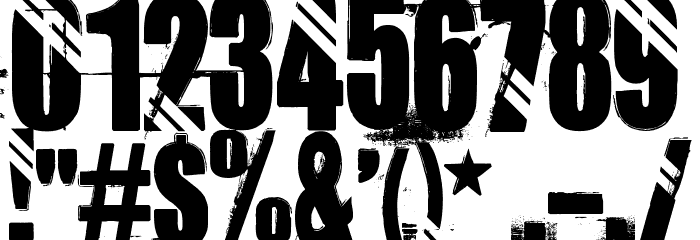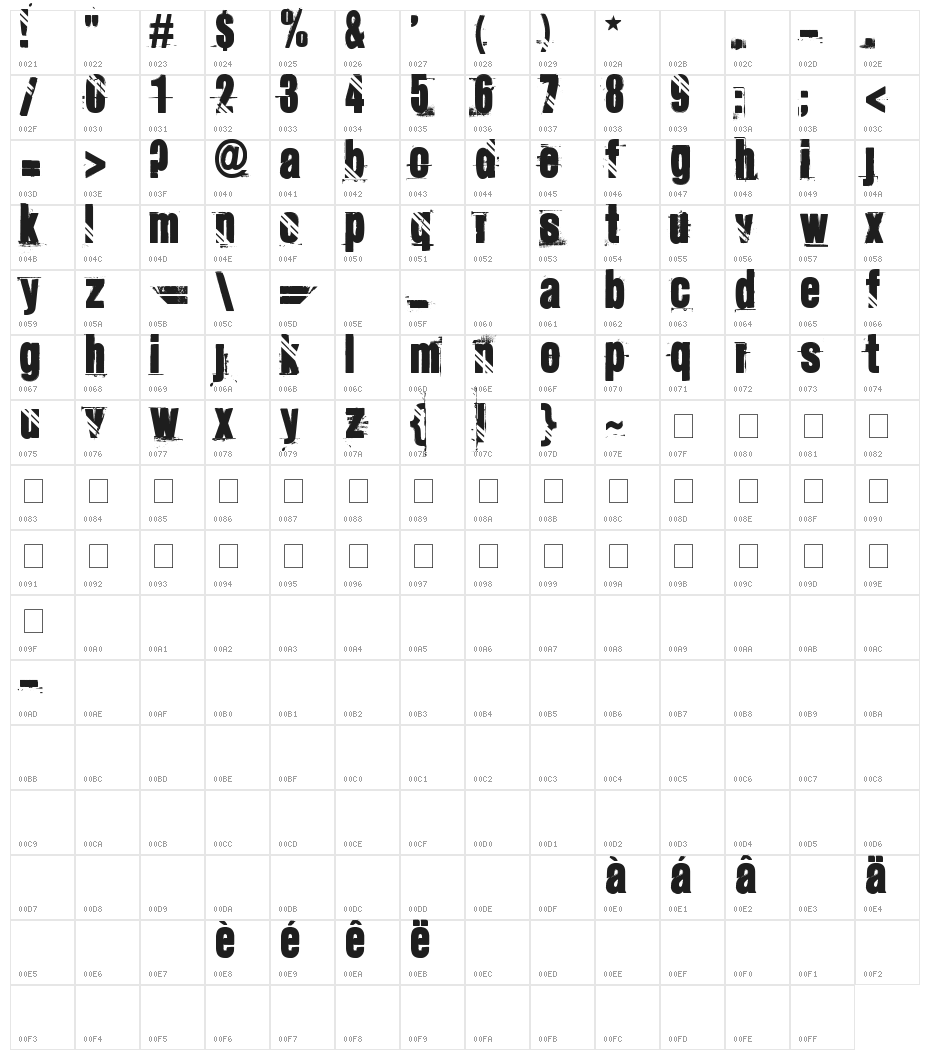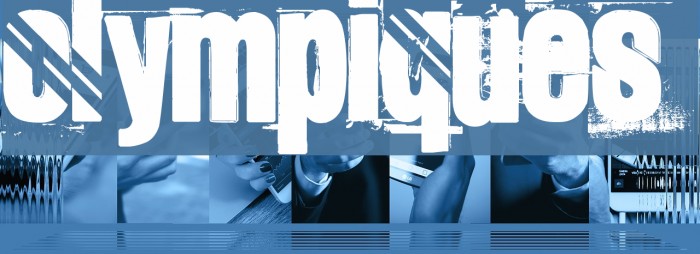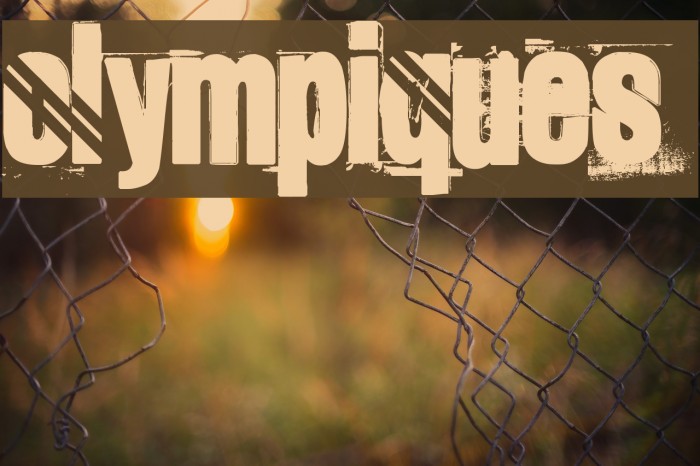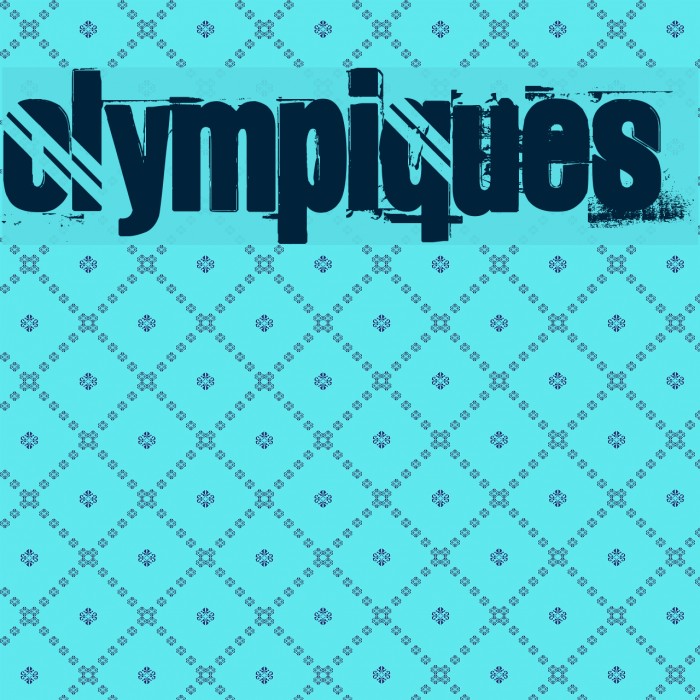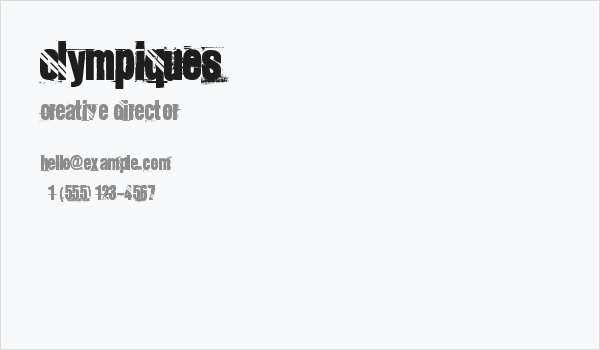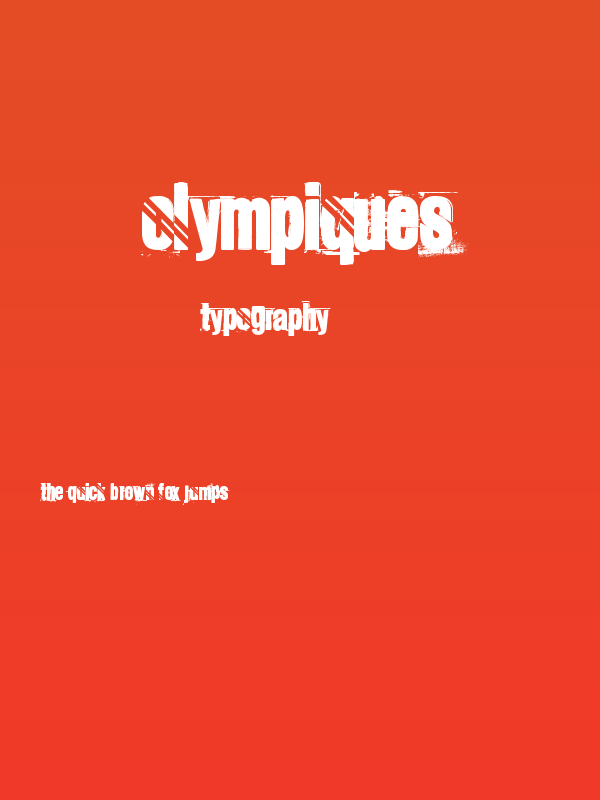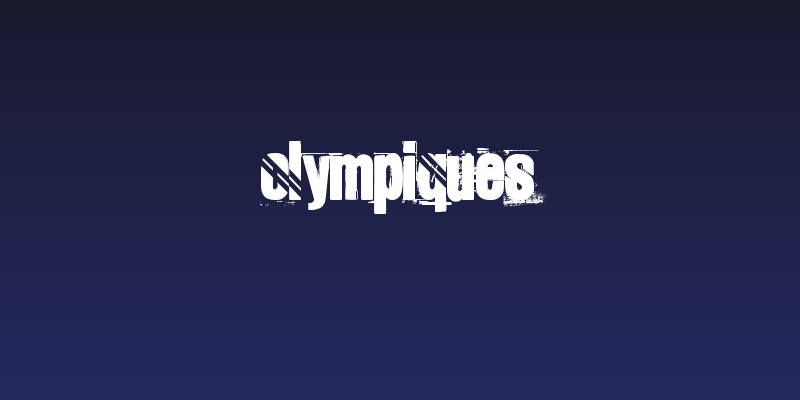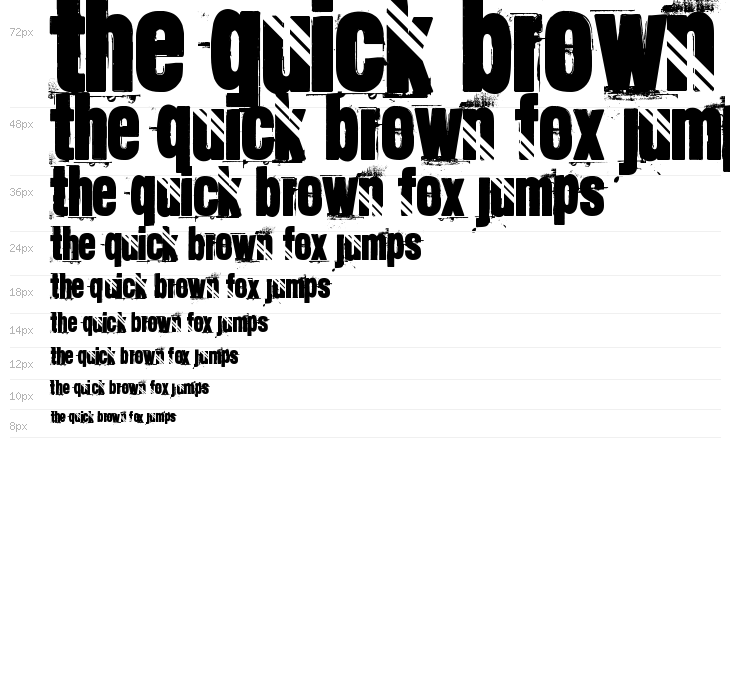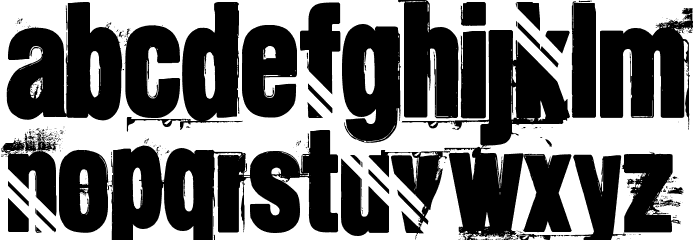
OLYMPIQUES Font
OLYMPIQUES Description
This font features a bold, distressed style with a high level of texture and visual noise, giving it a rugged, grunge appearance. The characters are thick and blocky, with a strong presence that commands attention. The distressed effect is consistent across all characters, creating a cohesive look that is both edgy and dynamic. The uppercase and lowercase letters maintain a uniform width, while the numbers and special characters integrate seamlessly with the overall design. This font's unique style makes it ideal for projects that require a bold statement or an urban, industrial feel.
| Overall Style | Grunge, Urban |
| Proposed Projects | Ideal for album covers, posters, streetwear branding, and urban-themed designs. |